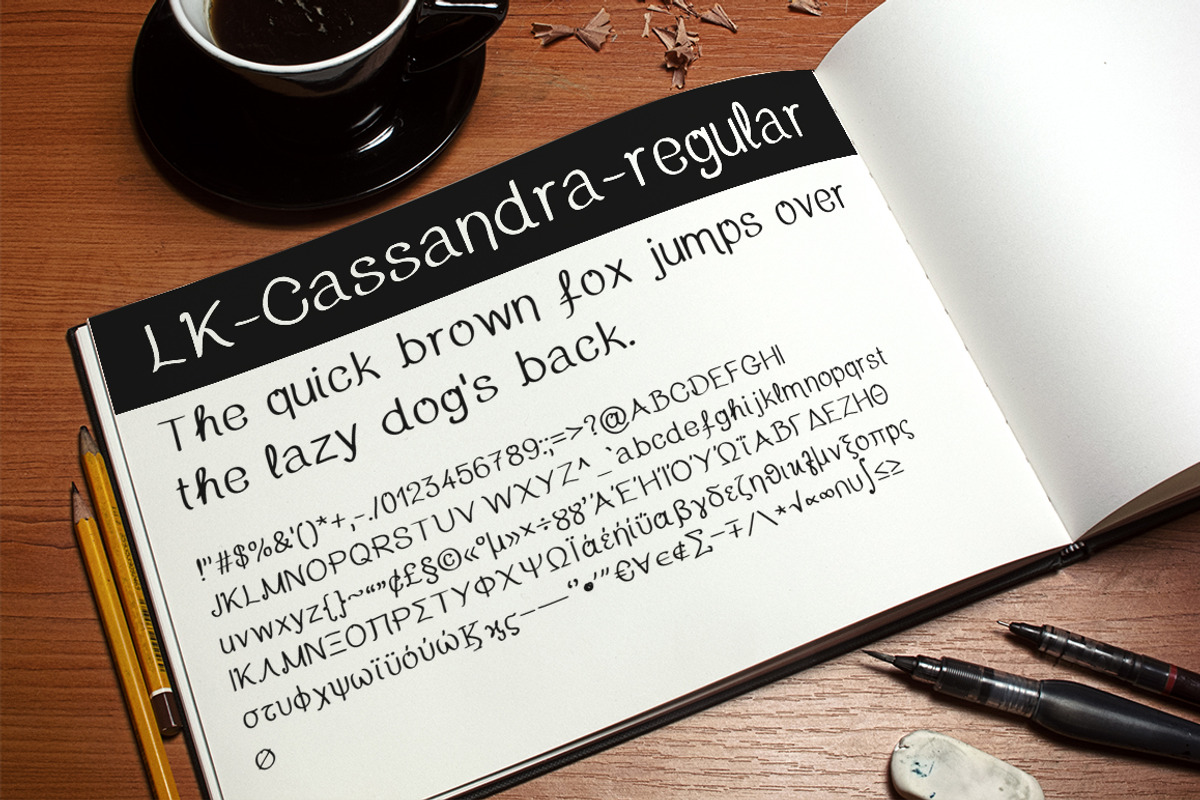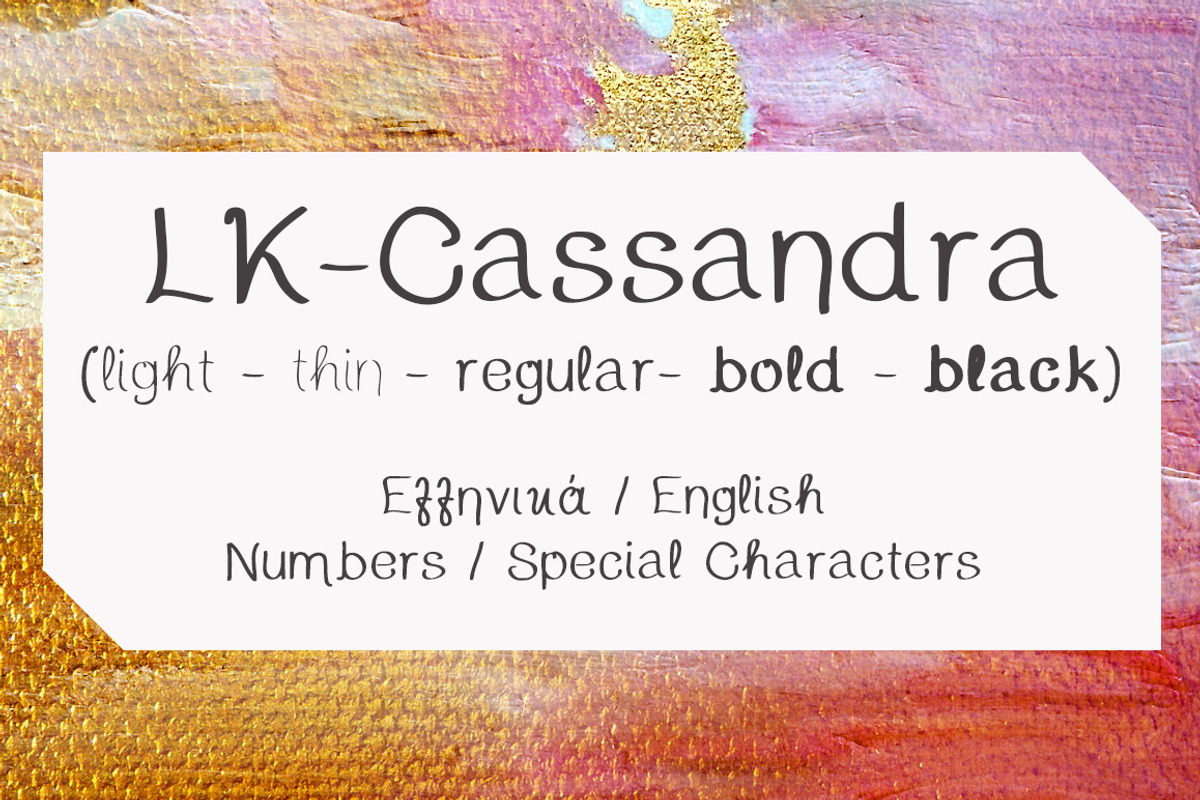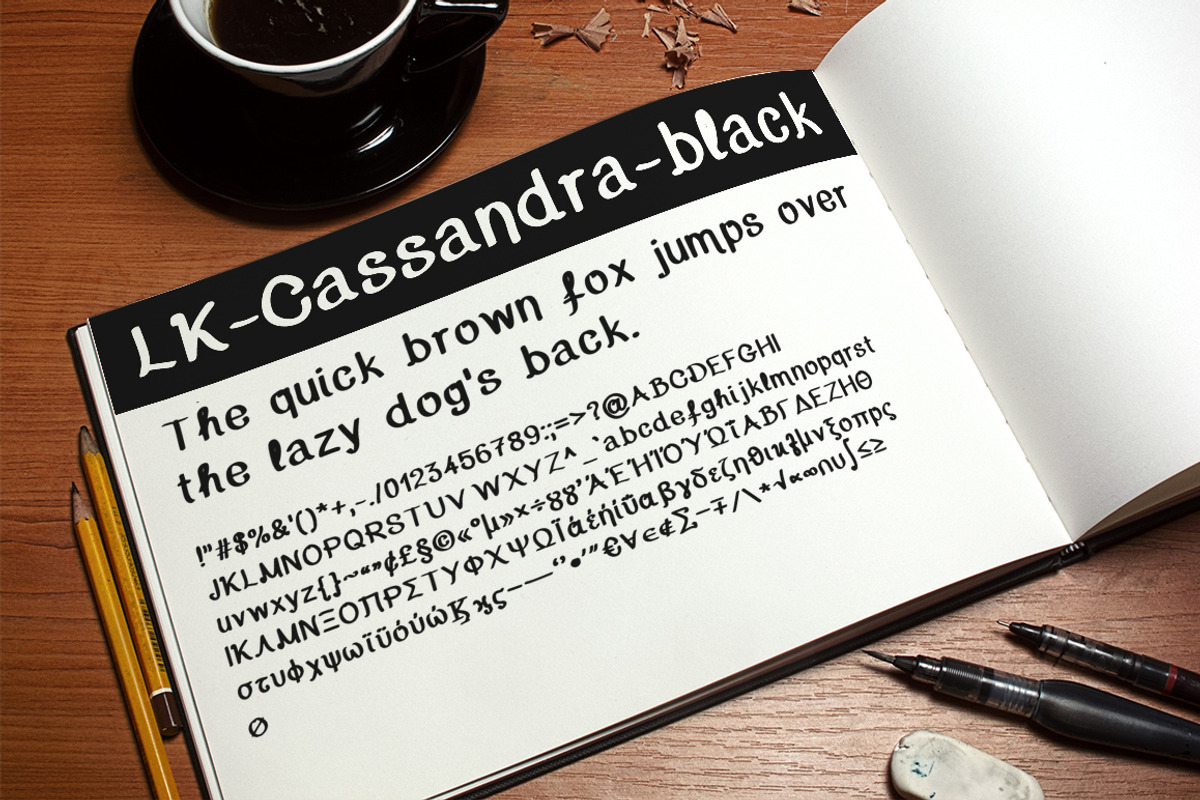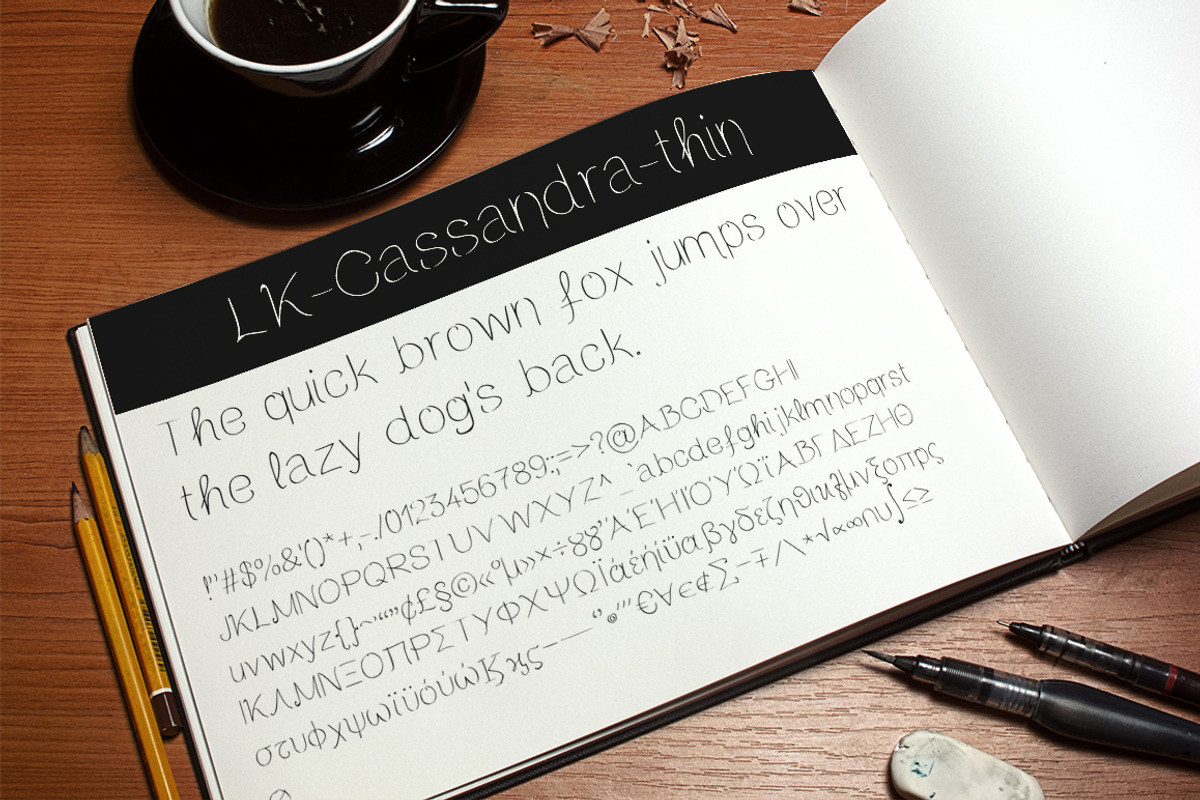
Cassandra Hand Drawn Font
Cassandra Hand Drawn Font by Elegrad Design Agency is a font selected for branding, posters, packaging, typography.
- Included are Cassandra Thin Cassandra Light Cassandra Regular Cassandra Bold Cassandra Black SUPPORT FOR GREEK CHARACTERS (see preview image
Cassandra Hand Drawn Font by Elegrad Design Agency fits naturally into Branding, posters, packaging, typography.